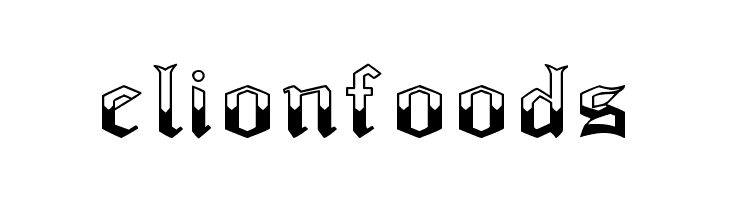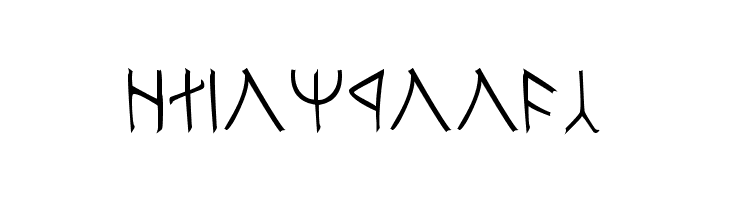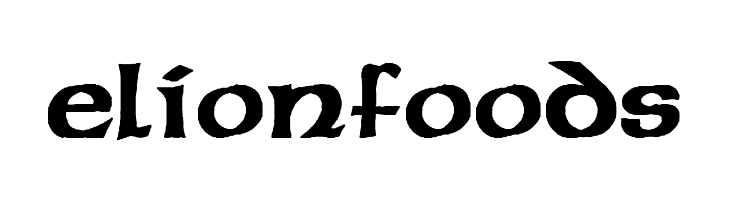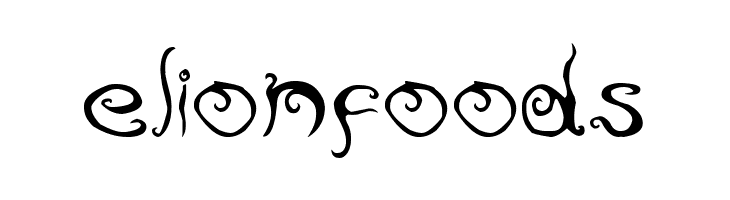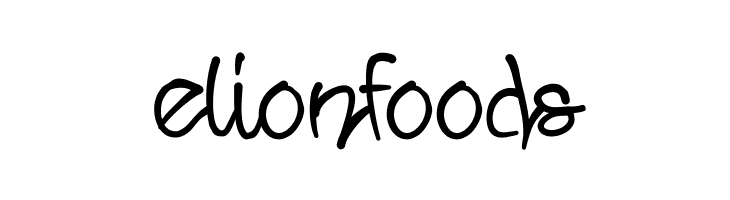
An ornate gothic font with elaborate swirls and bold blackletter elements.
A decorative, runic-inspired font with sharp, angular lines and a mysterious, ancient feel.
A decorative Celtic-inspired font with intricate patterns and knotwork.
A decorative Celtic-inspired font with intricate, ornate designs.
An artistic and whimsical font with gothic-inspired swirls and curves.
An organic, branch-like font with a dark, mysterious aesthetic.
A dynamic, expressive font with flowing lines and intricate swirls.
A whimsical and decorative font with playful, curly letterforms.